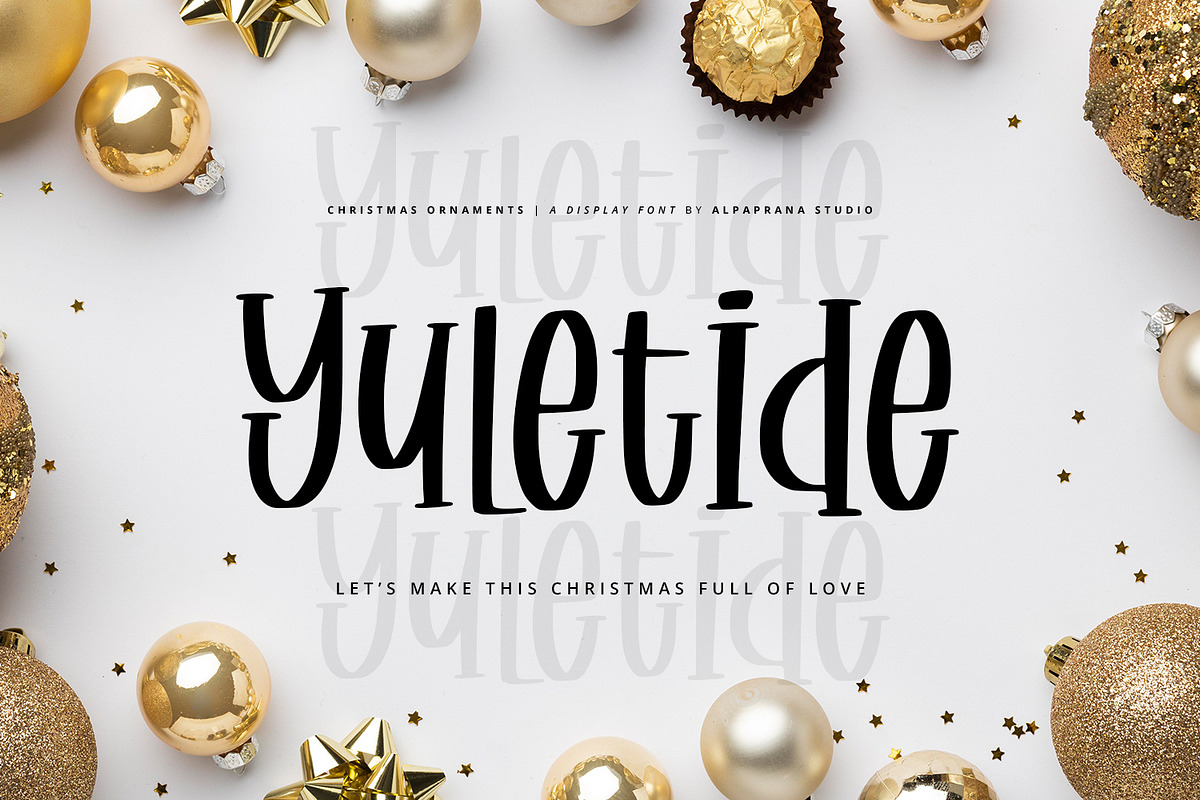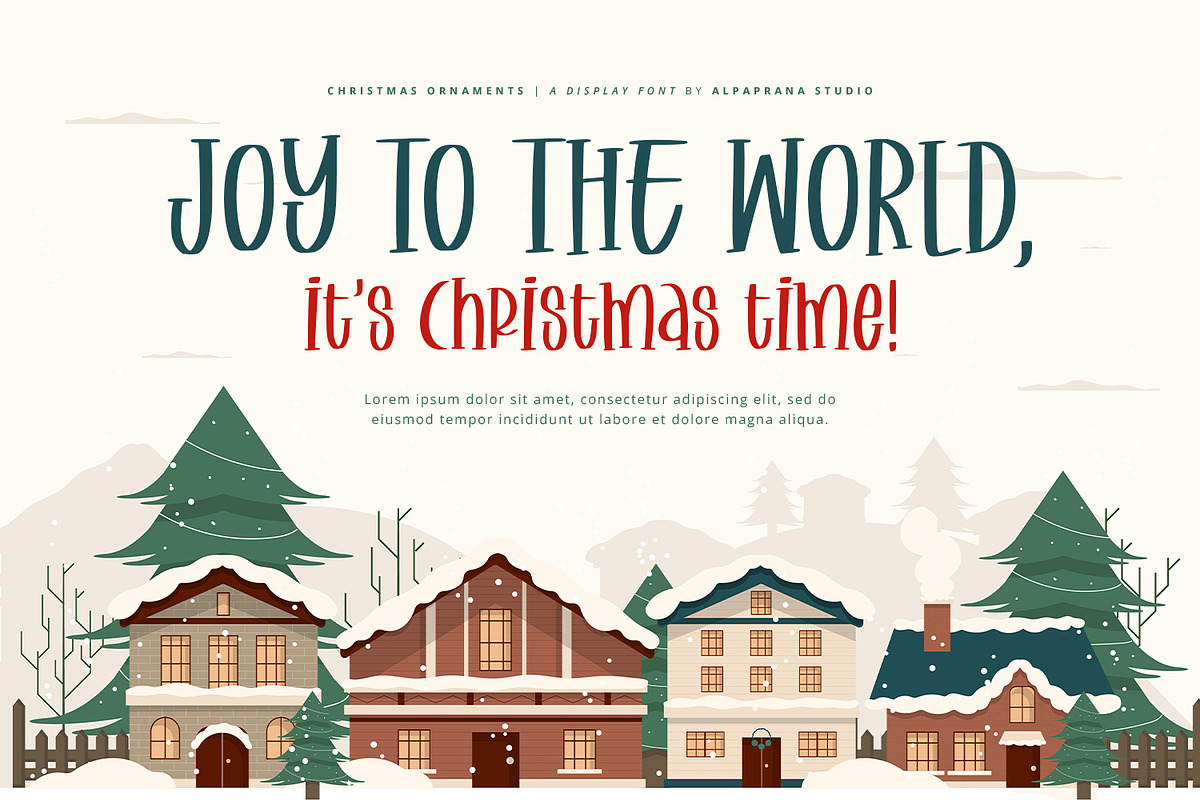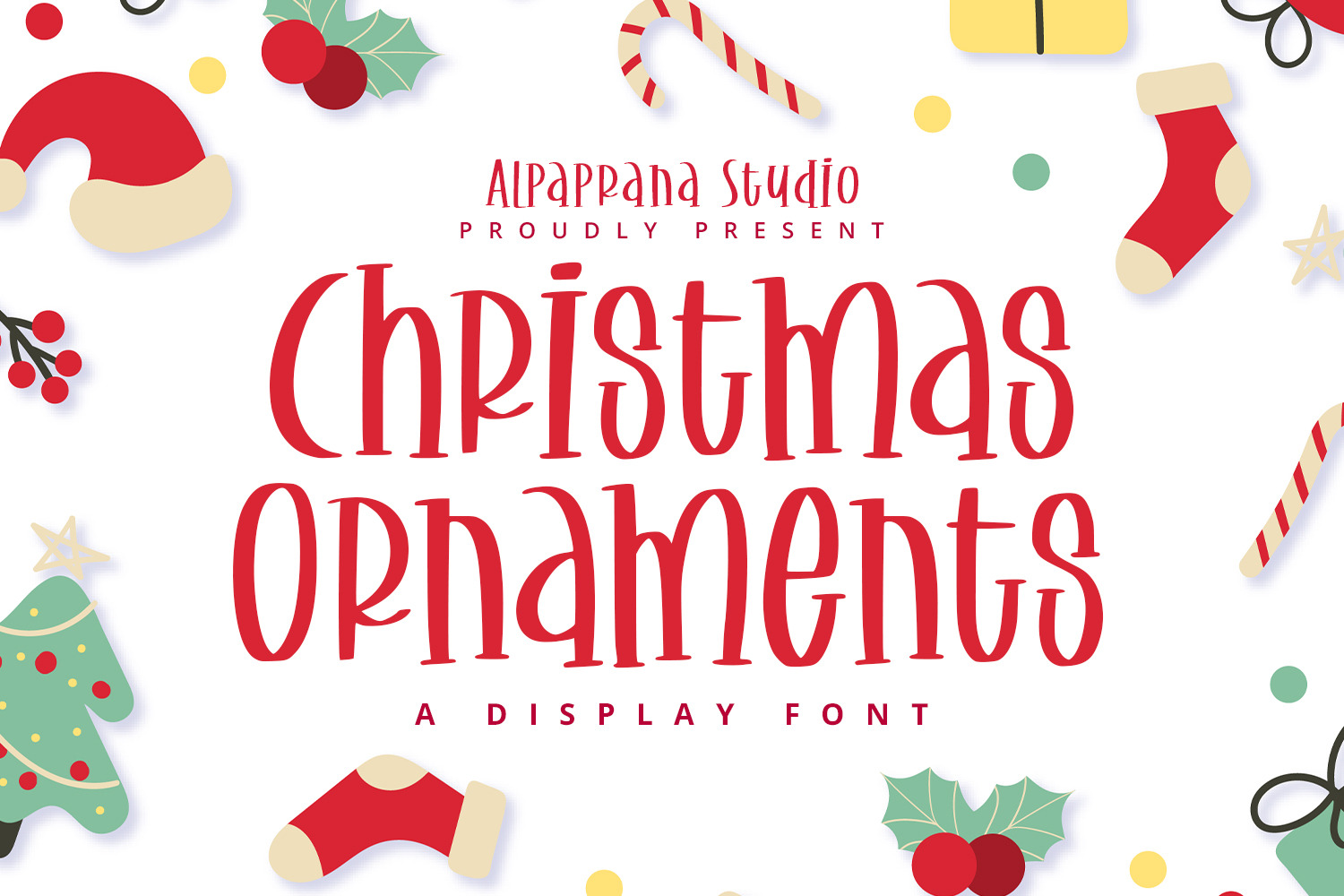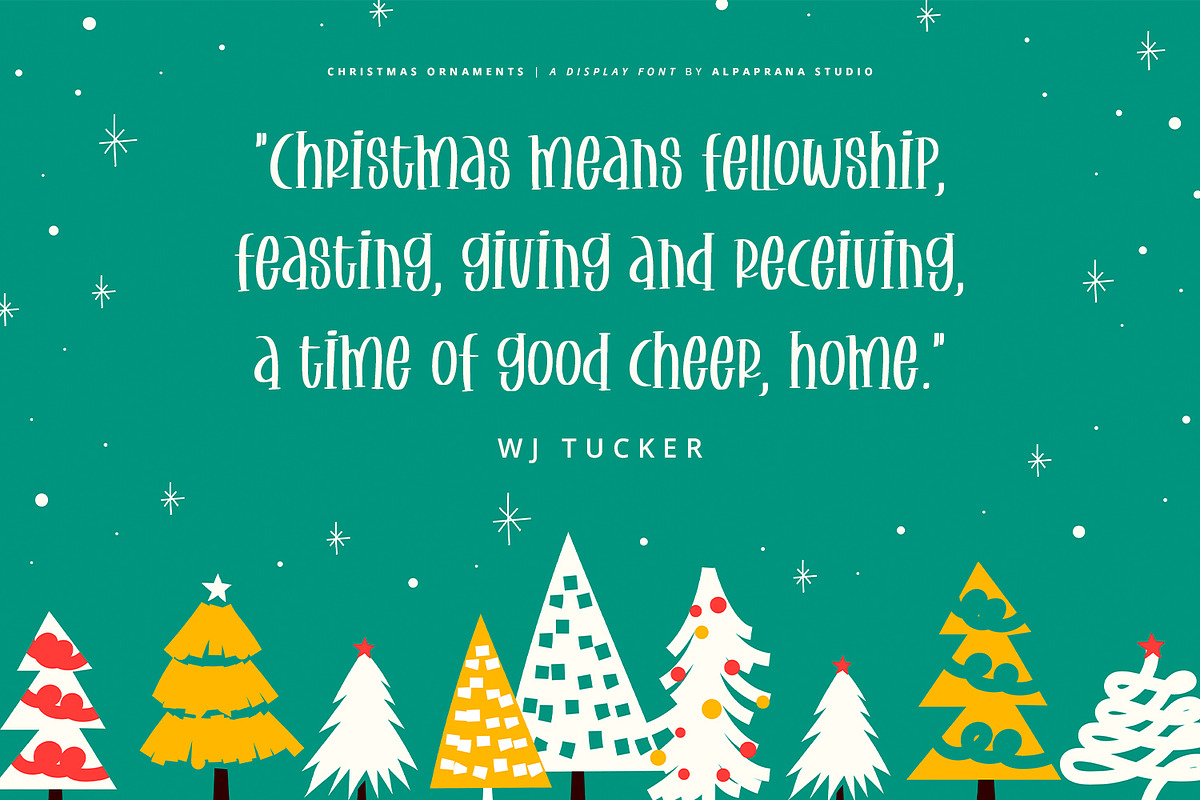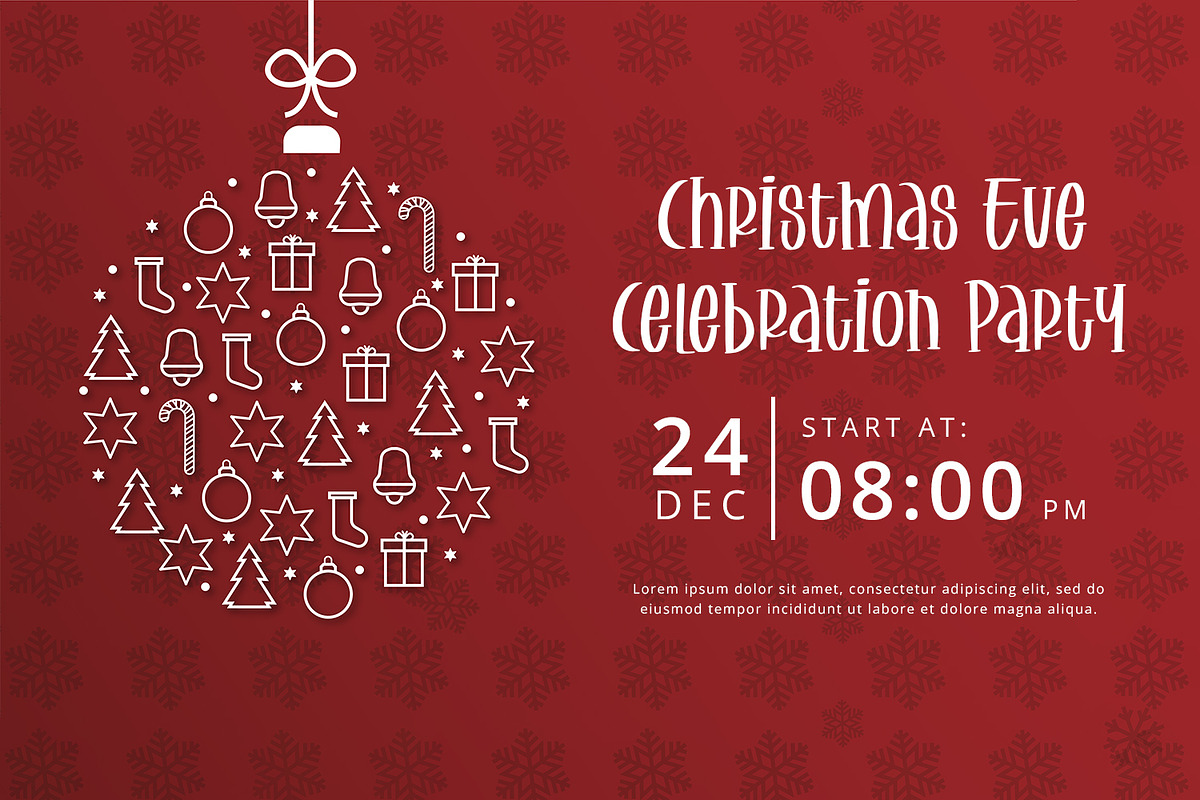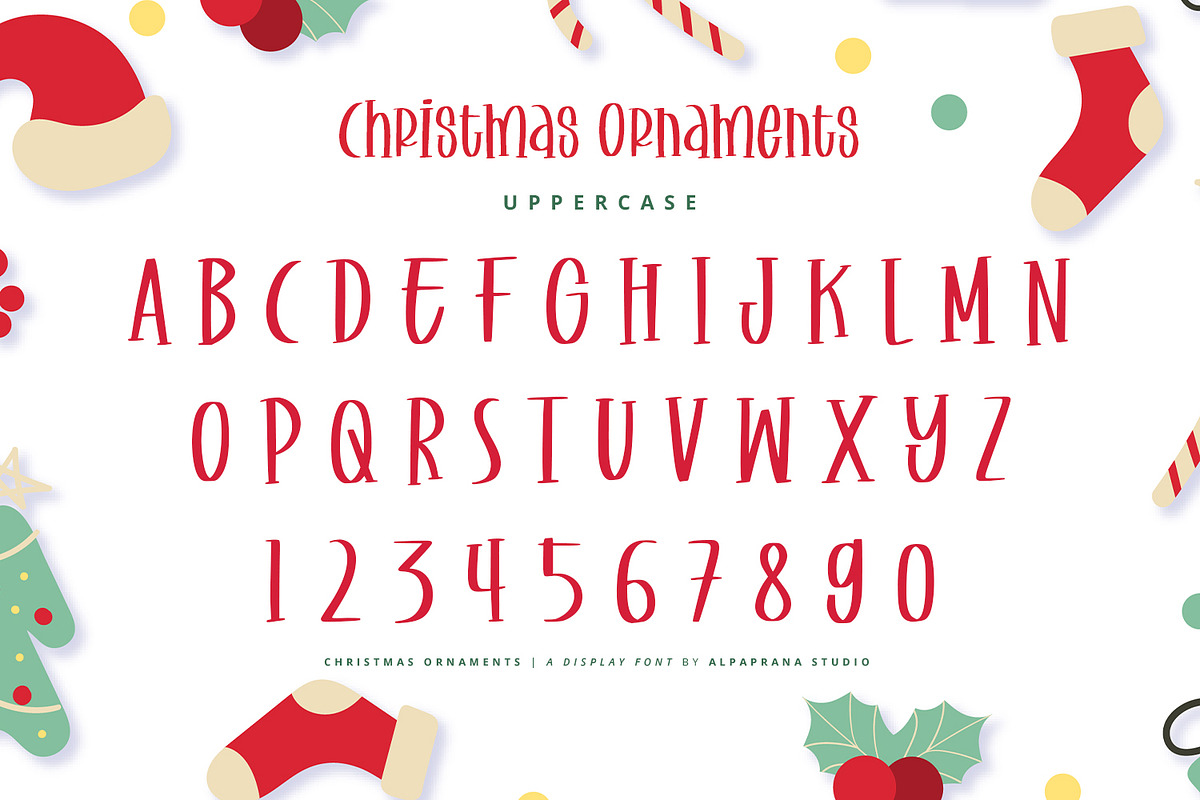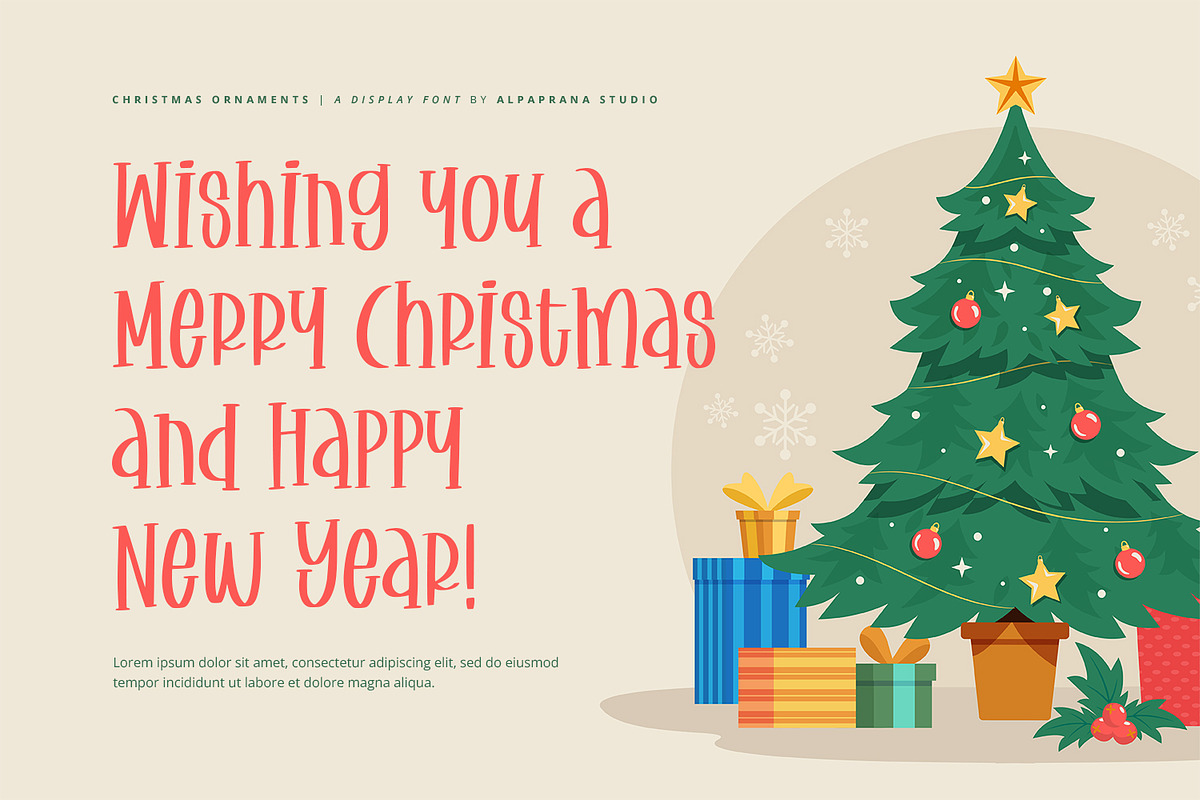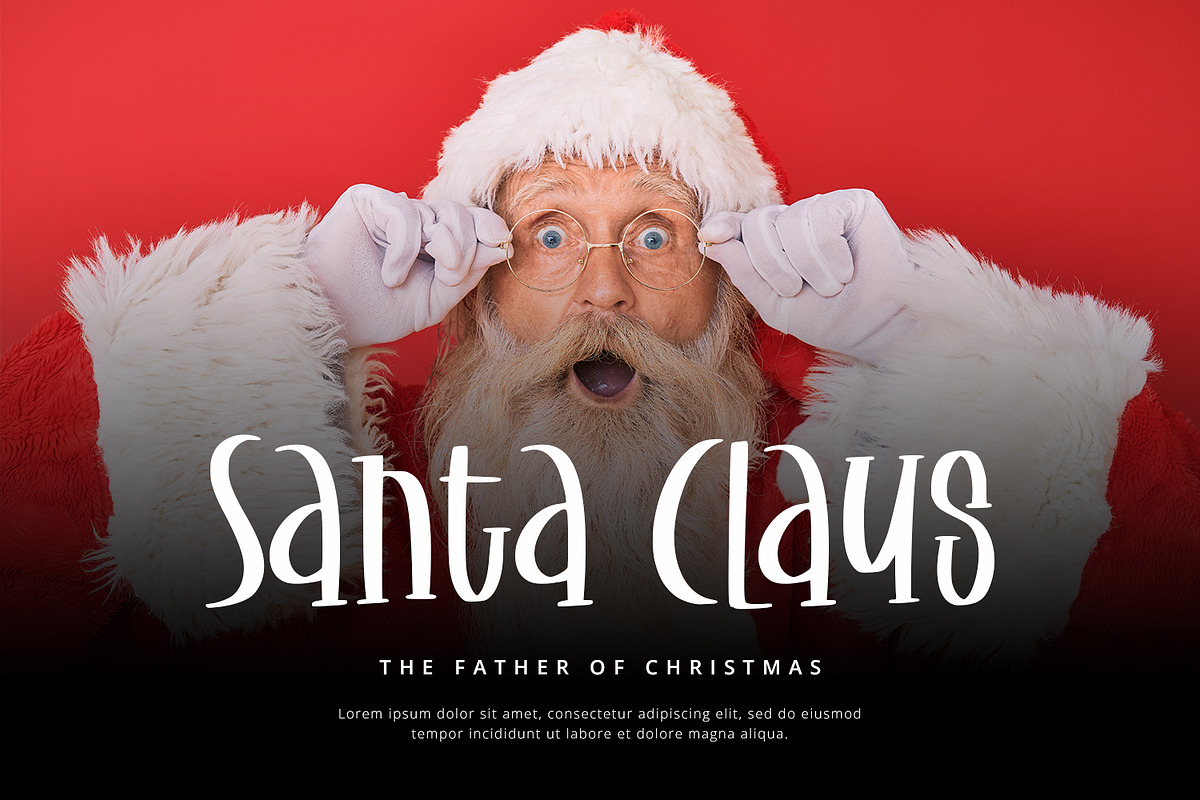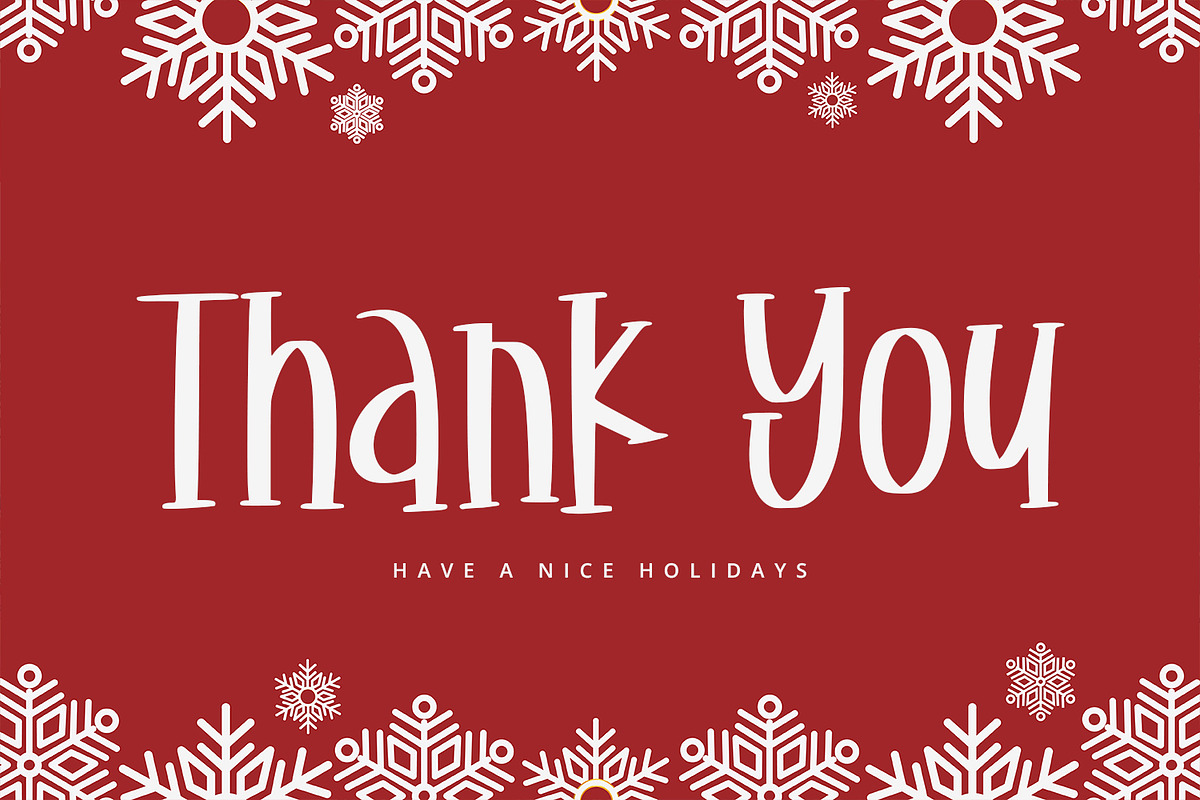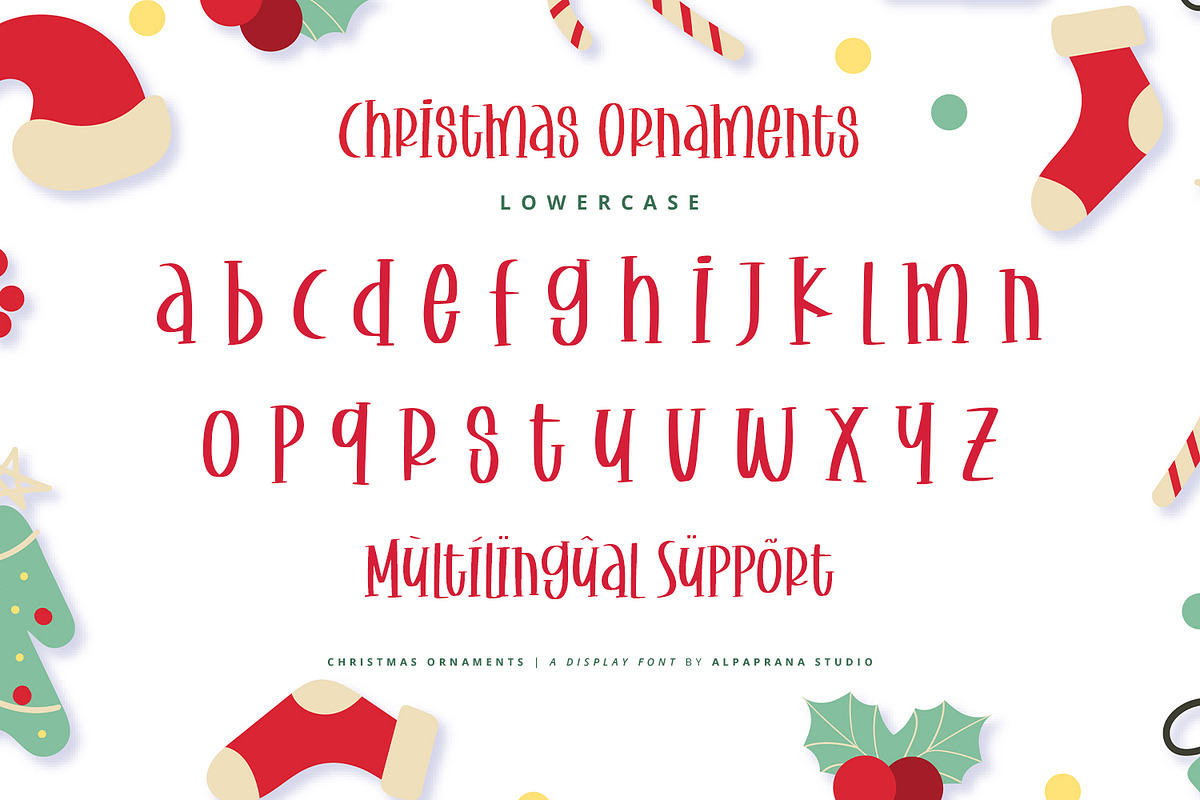
Christmas Ornaments - Display Font
Christmas Ornaments is a display font with cute and unique style. It will be perfectly used for Branding, Logo Design, Lettering, Logotype, Clothing, Poster, magazine, packaging, posters, shopping bags, t-shirts, book covers, photography, special events and other design project.